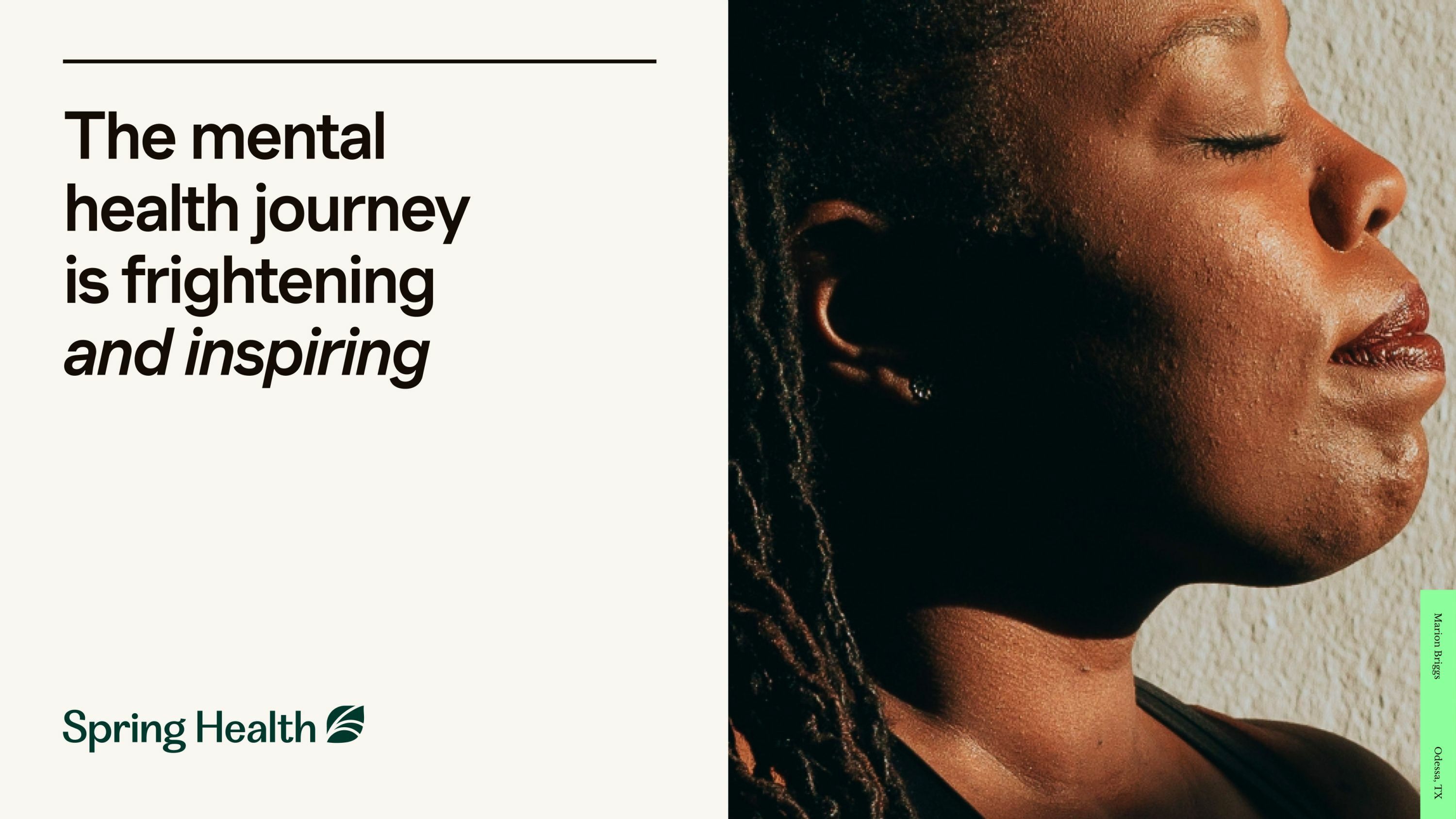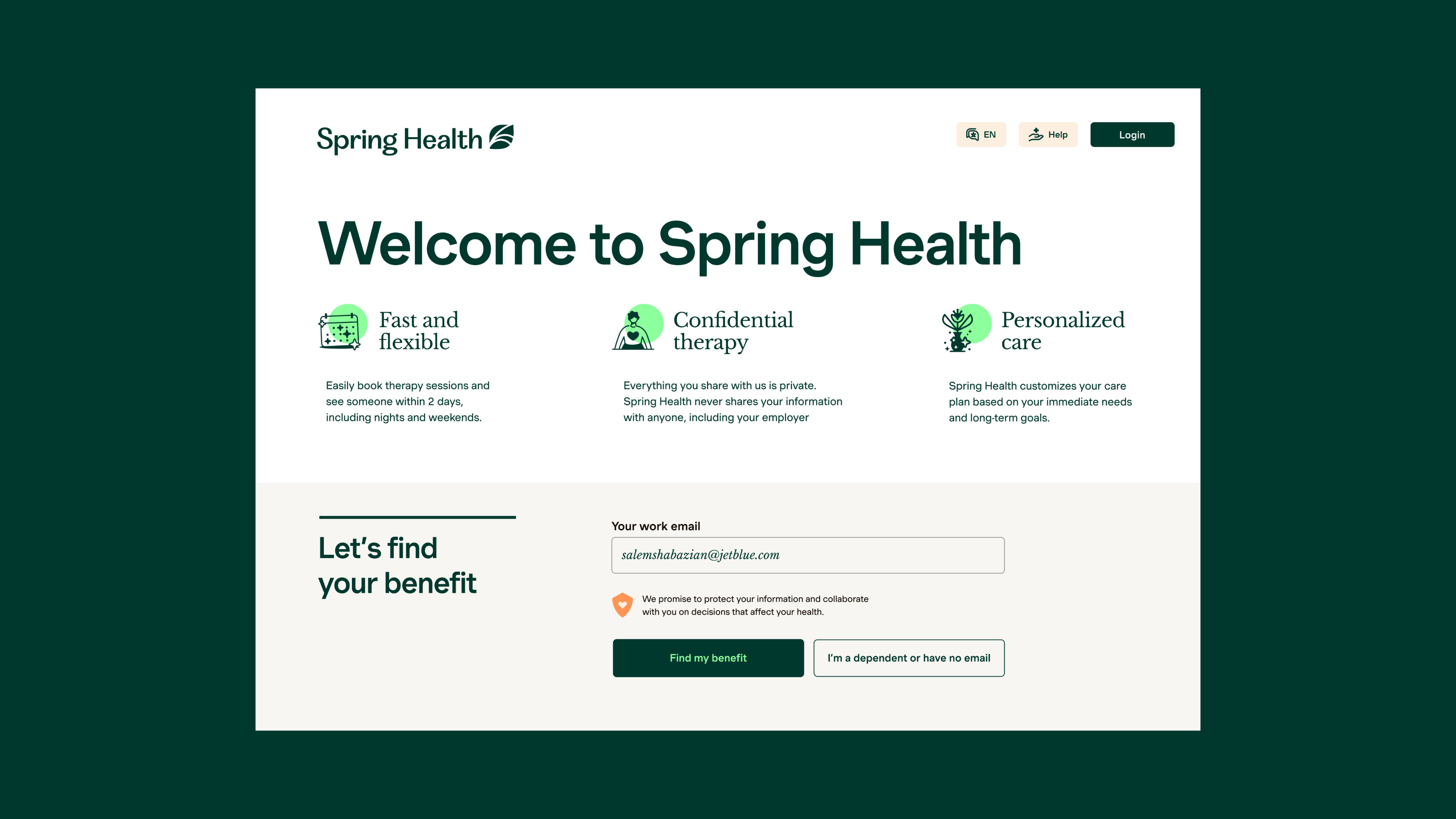
Spring Health
A Logo Refinement for Spring Health
Spring Health logo in use
Spring Health logo
Spring Health logo in use
Spring Health
A Logo Refinement for Spring Health
Spring Health logo in use
Spring Health logo
We worked with Moving Brands to build on the progression represented in the rich typography of the Spring Health logo. Exploring the design’s features and modulation, we delivered a unique and expressive logo that truly conveys Spring Health’s warmth and generosity.
Spring Health Logo, Logo Refinement, 2023
Exploration
Spring Health supplied artwork
Original logo
Spring Health supplied artwork
Supplied artwork
Exploring the design
Spring Health final logo
Final logo